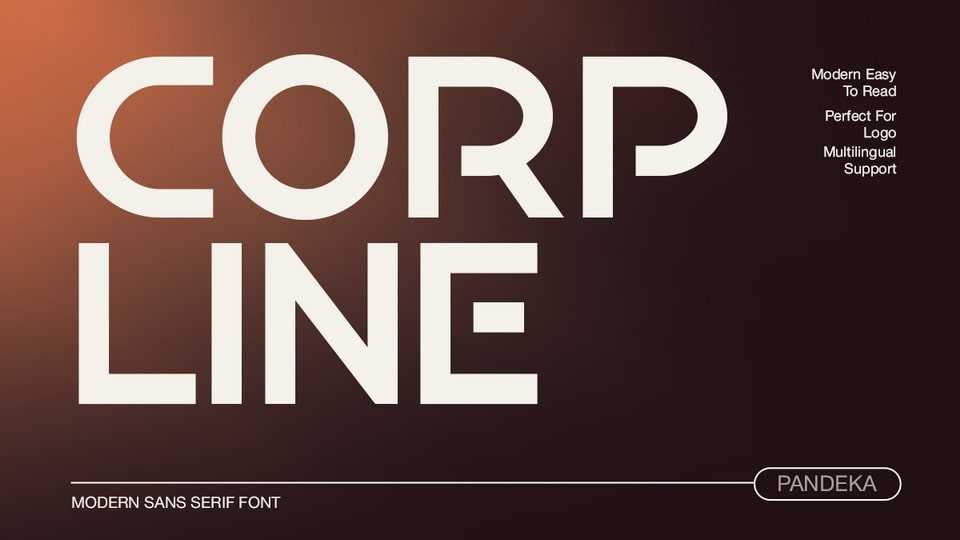
Download Corpline font, a sleek, modern sans-serif typeface designed to embody the future of digital and corporate branding with its geometric construction and wide letter spacing.